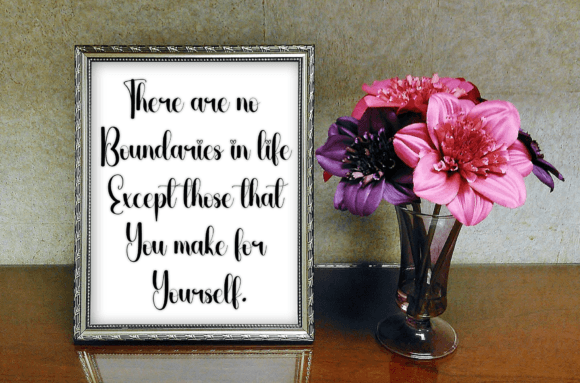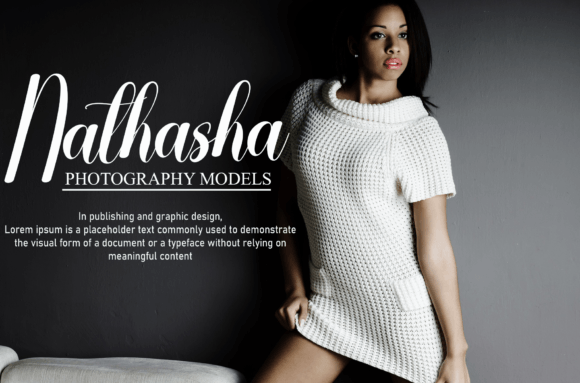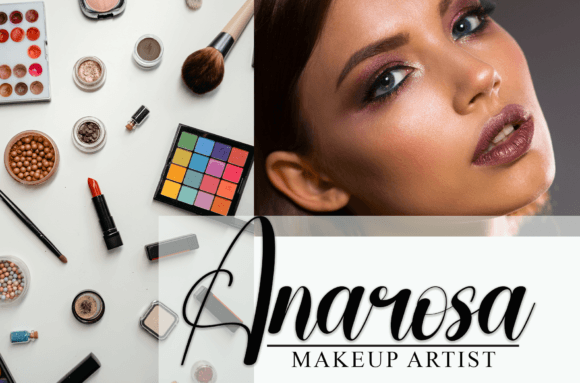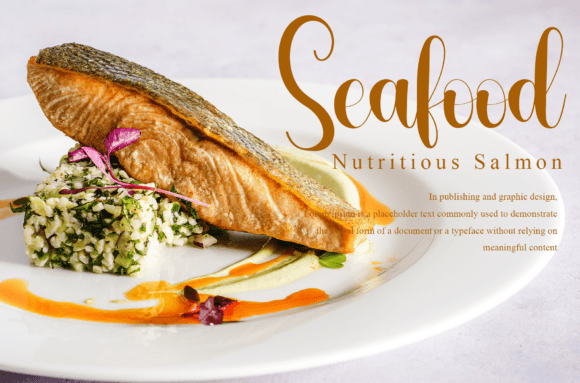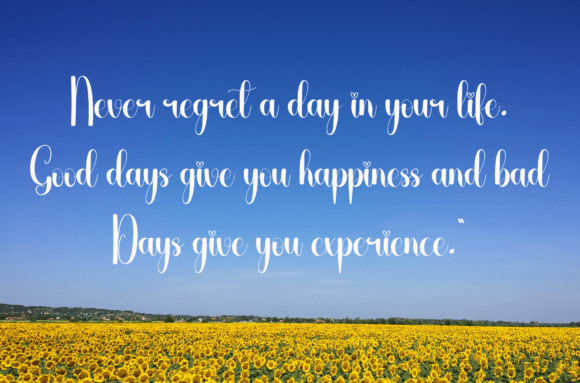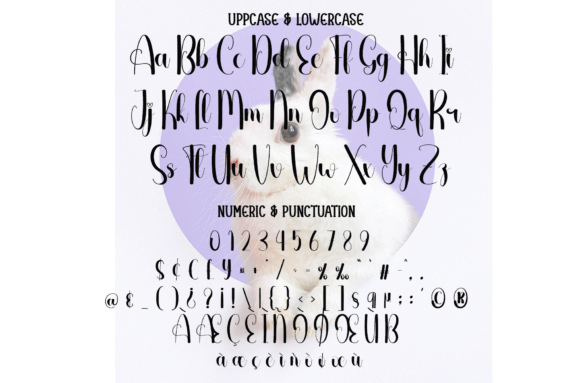
The Sweetest Addition to Your Design Arsenal: Bunny Font
I’ll never forget the time I was working on a wedding invitation project, and my client asked for a font that was “fun, yet elegant.” I scoured the internet, tried out dozens of fonts, but nothing seemed quite right. That was until I stumbled upon Bunny Font. This sweet and friendly handwritten font has been a game-changer for me, and I’m excited to share it with you! 😊
An Honest Review of Bunny Font
- ✨ Fresh and neat design that’s perfect for a variety of projects
- ✅ Easy to read, even at smaller font sizes
- 💕 The perfect blend of playfulness and sophistication
- 🎉 Great for creating a friendly and approachable tone
While Bunny Font is an amazing addition to any design project, there are a few things to keep in mind:
- ⚠️ Some of the more intricate details can get lost at very small font sizes
- 🤔 Limited availability of stylistic alternates, but what it does offer works beautifully
The Story Behind Bunny Font
Bunny Font was designed with love by a talented type designer who wanted to create a font that captured the essence of friendship and warmth. Inspired by handwritten notes and letters, Bunny Font is the perfect blend of playfulness and sophistication.
Q: Is Bunny Font suitable for body text?
A: While Bunny Font is beautiful, it’s best suited for headings and titles. For body text, you may want to choose a font that’s easier to read at smaller font sizes.